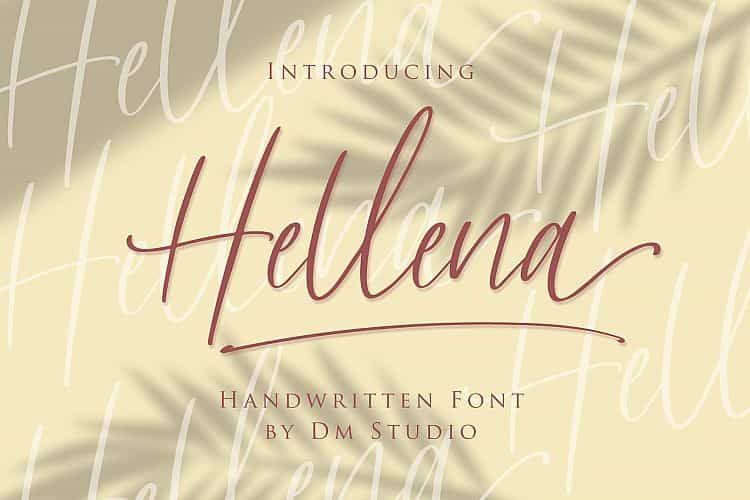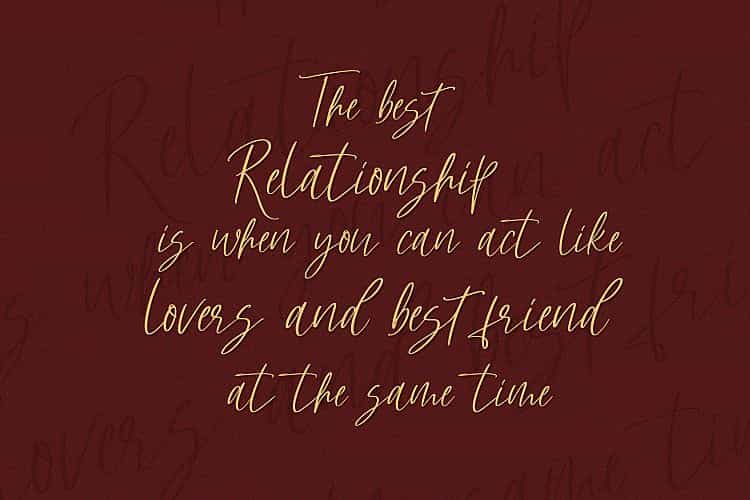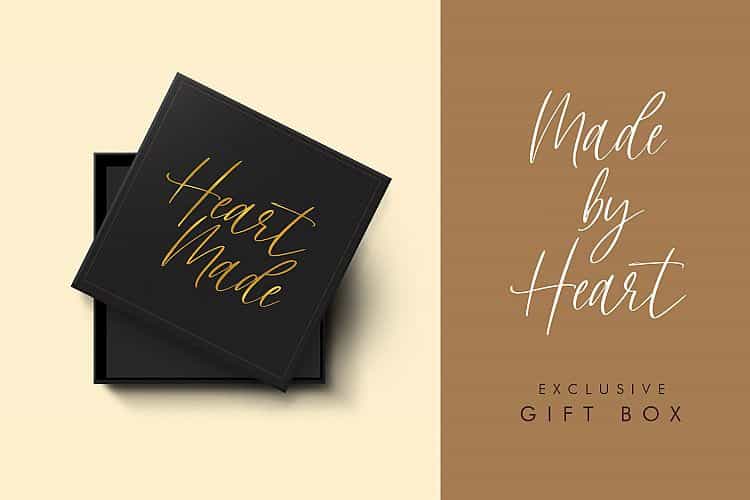
Discover Hellena Handwritten Script Font, part of the Calligraphy Handwritten collection—a versatile and unique font perfect for adding a personal touch to your projects. Download it for free and enjoy crafting designs with style, from invitations to social media posts. This font is available exclusively for personal use, giving you the freedom to create without limits. Unlock your creativity with Hellena Handwritten Script Font today!
Hellena Font supports languages, over 50 ligatures and swashes are available for use.May I present, Hellena Font–a relaxed, smooth and beautiful style that embodies the script elements of speedily handwritten manuscript accents.It is easy for you to conveniently use them at wedding invitations, on gifts from us, or in your own logo brand promotions as well as any other project -just slap them all over everything.